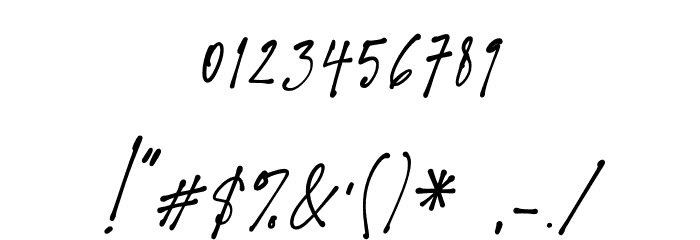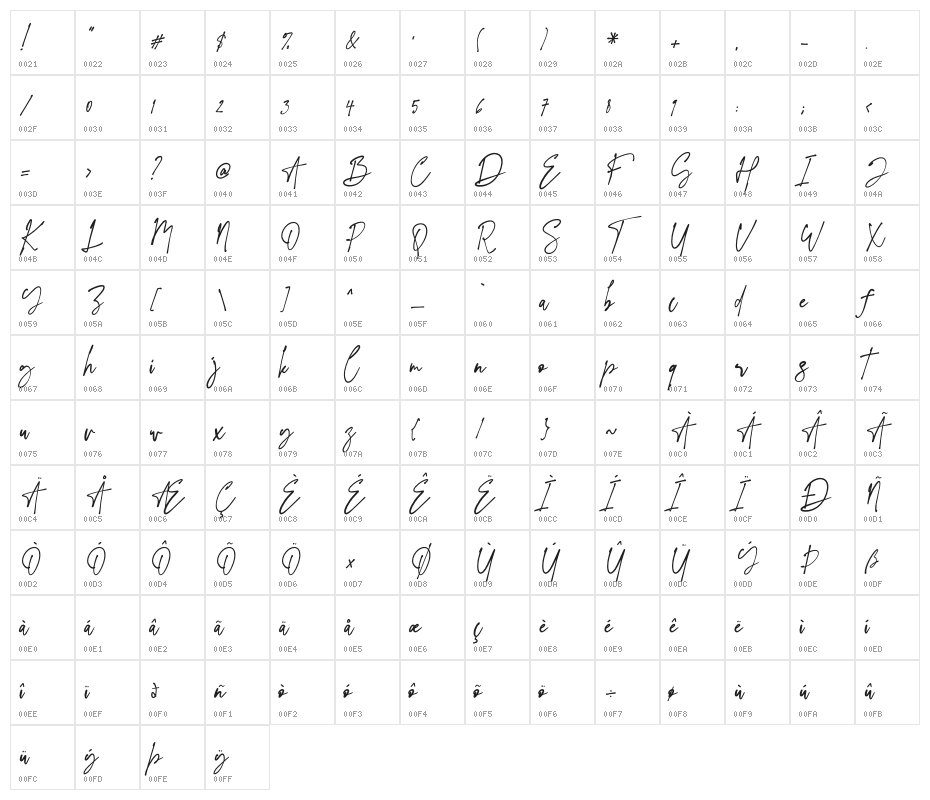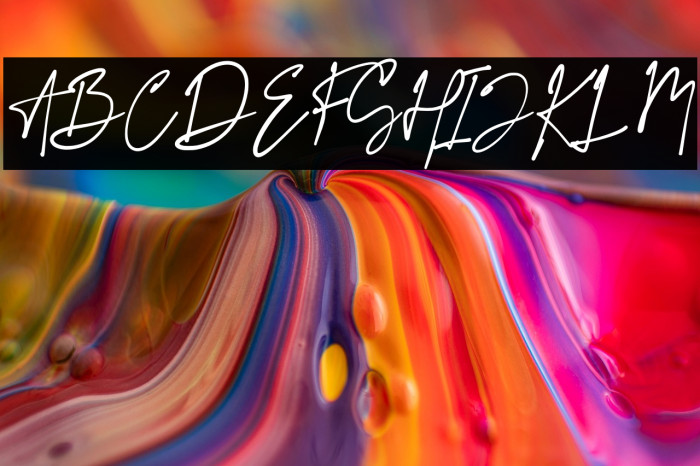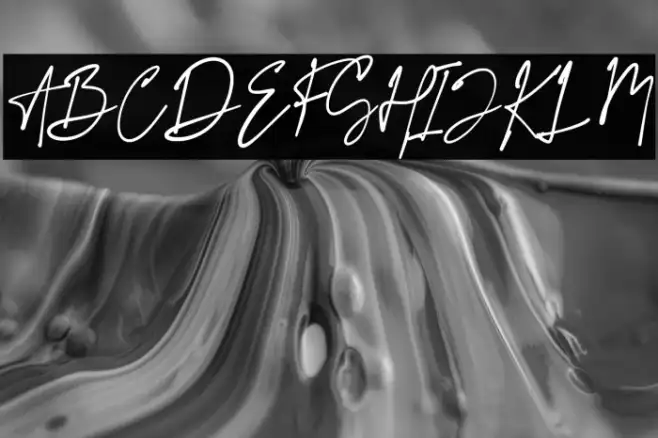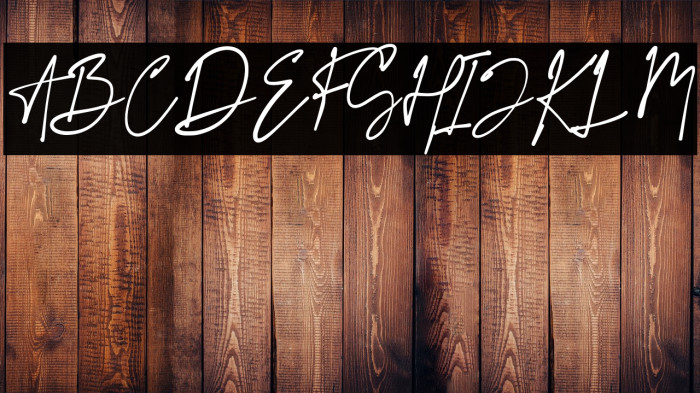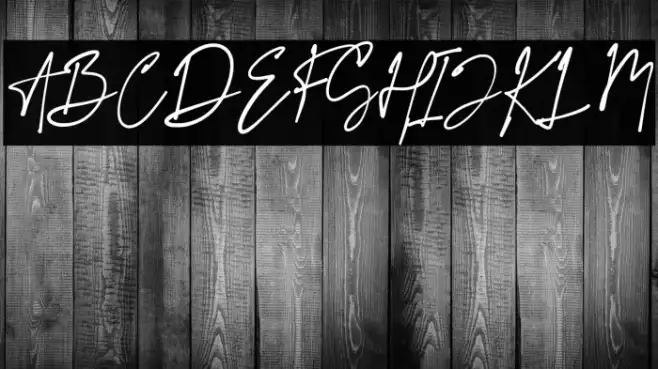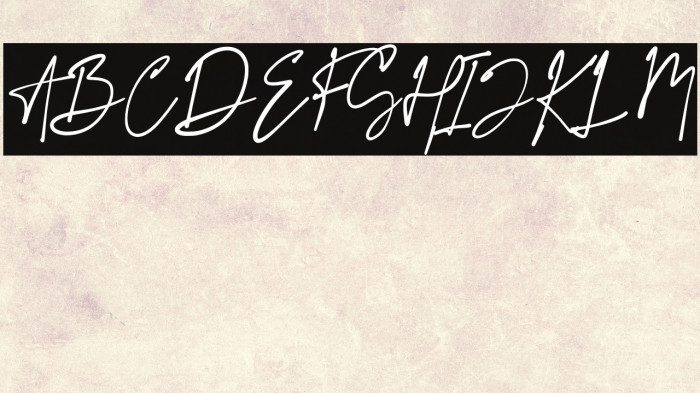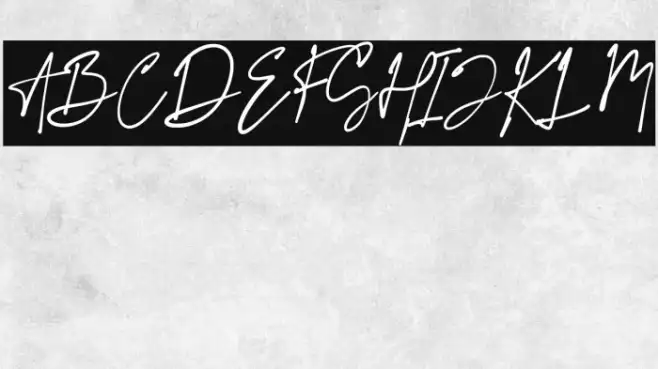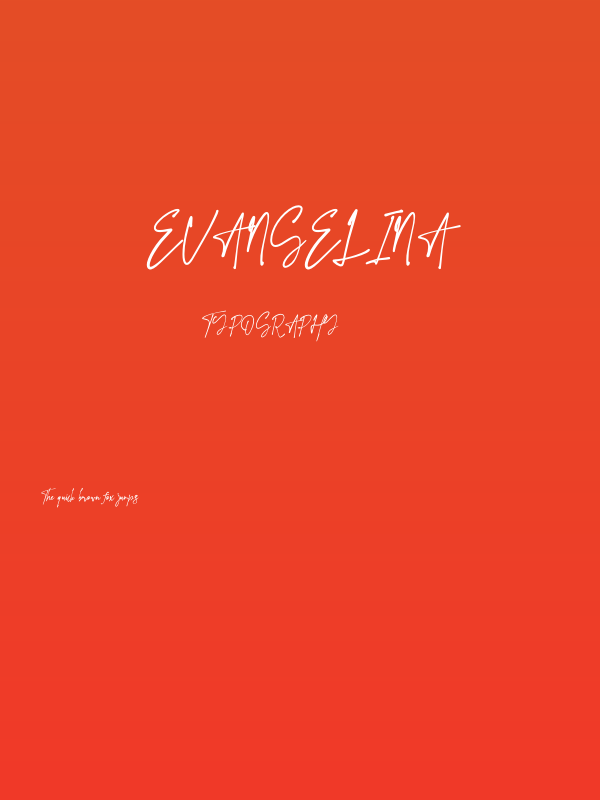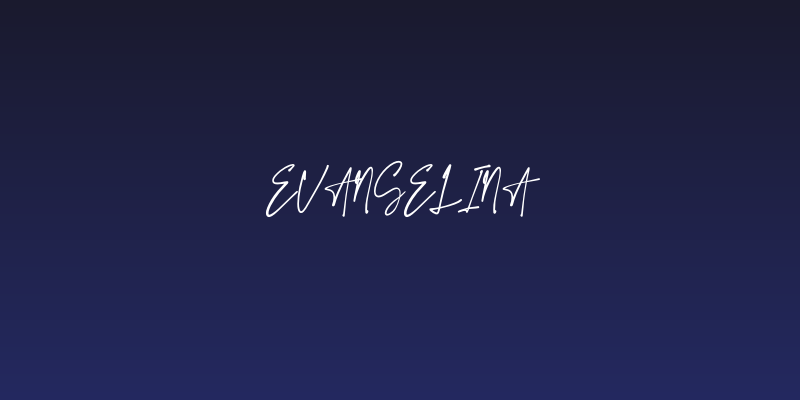
Evangelina Font
Evangelina Description
This font features a dynamic and expressive handwritten style, characterized by its fluid and cursive letterforms. The strokes are varied in thickness, giving it a lively and spontaneous appearance. The uppercase letters are bold and prominent, while the lowercase letters maintain a consistent flow, enhancing readability. The numerals and special characters are crafted with the same attention to detail, ensuring a cohesive look throughout. This font exudes a personal and artistic touch, making it suitable for projects that require a humanistic and informal feel.